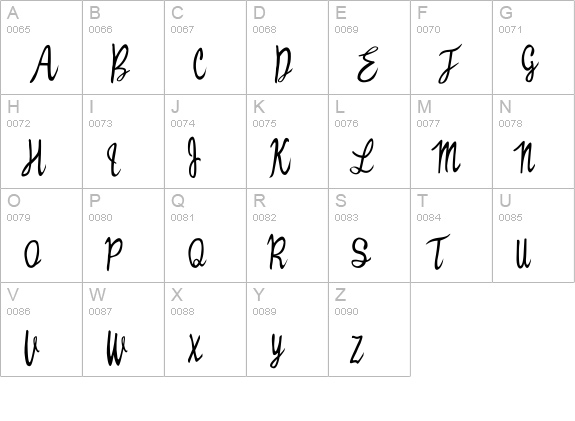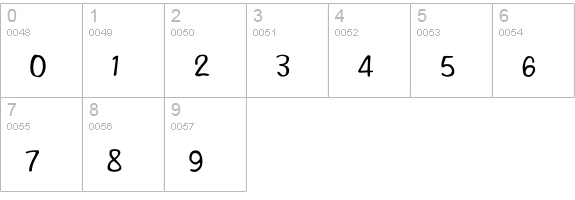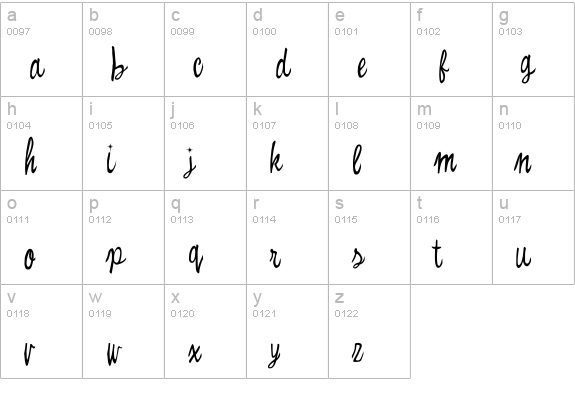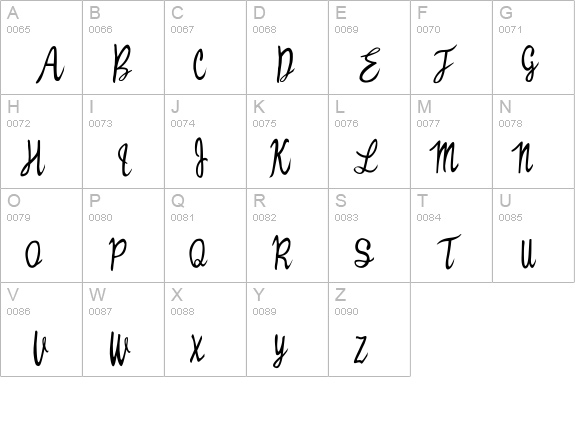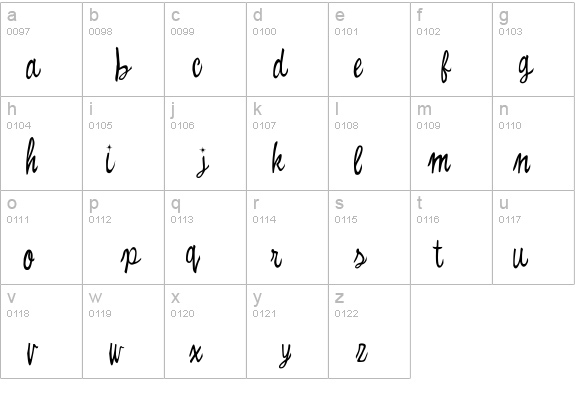
Witched Font Details
Introducing Witched font, a mesmerizing typeface that will cast a spell on your designs. With its enchanting curves and mystical lines, this font is perfect for adding a touch of magic to your projects. But what sets Witched font apart from the rest? Well, it's not just its bewitching aesthetic, but also the fact that it is completely free to download. That's right, you can bring a dash of sorcery to your designs without spending a dime. Whether you're working on a spellbinding logo, a mystical poster, or a bewitching invitation, Witched font will add an air of mystery and intrigue. Its beautifully crafted letters are sure to captivate your audience and leave them spellbound. And the best part? Witched font is readily available for download at FontsMarket.com. Simply visit the website, search for Witched font, and with just a click, you'll have this enchanting typeface at your fingertips. So, why wait? Unleash your creativity and let the magic of Witched font mesmerize your designs. Get it for free today at FontsMarket.com and embark on a journey into the world of witchcraft and wizardry.